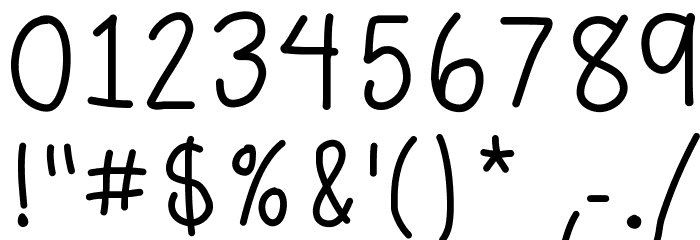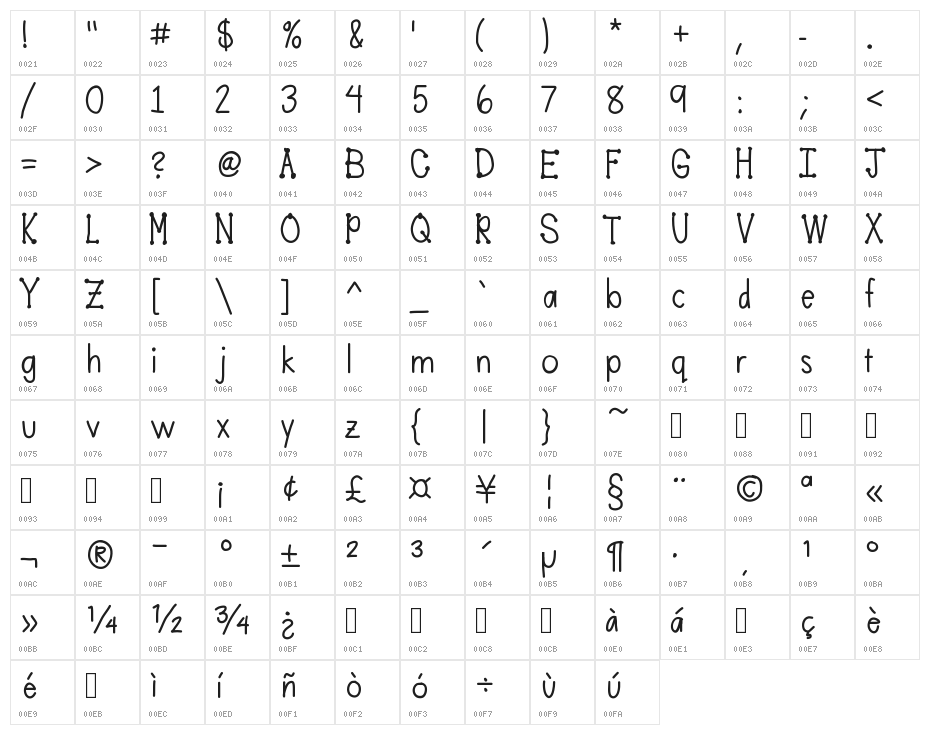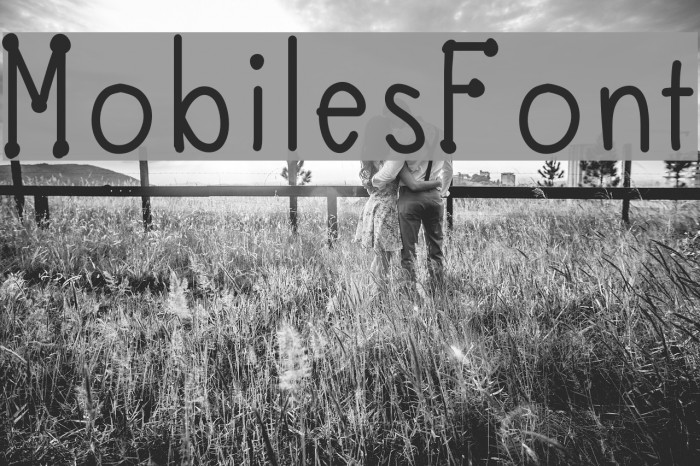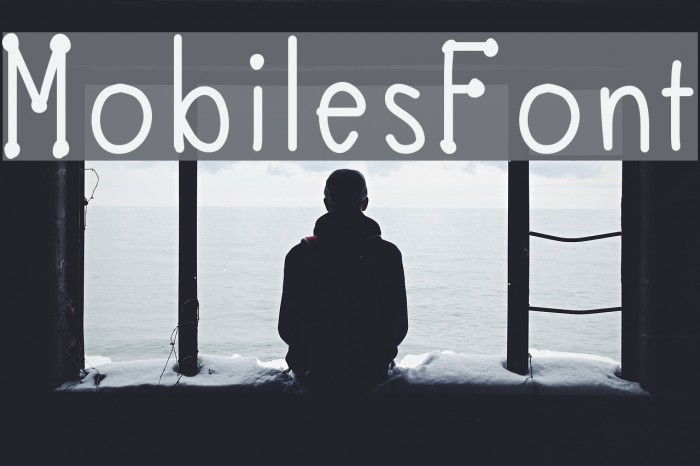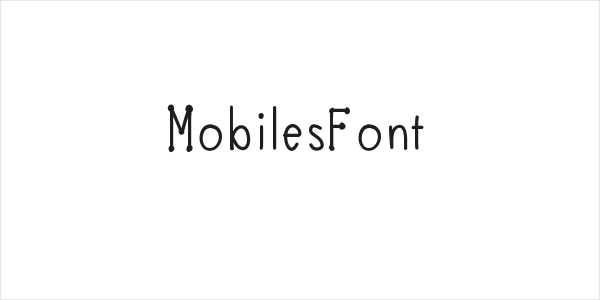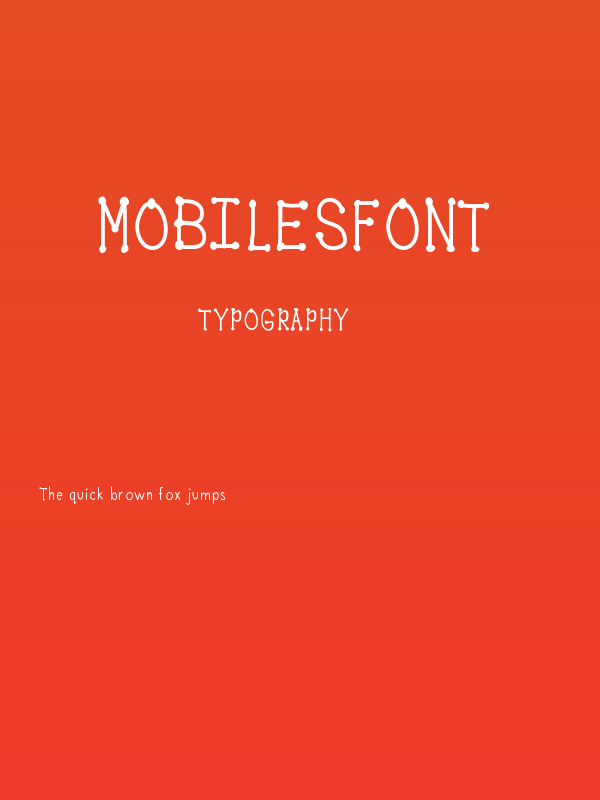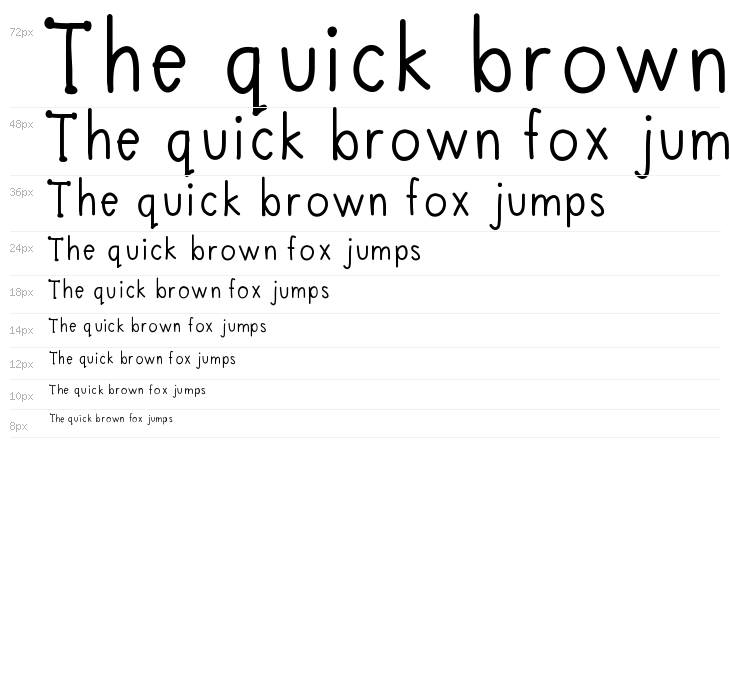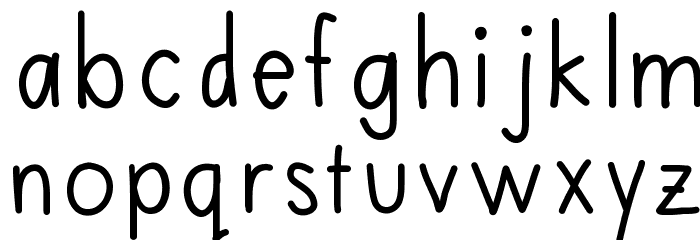
MobilesFont Font
MobilesFont Description
This playful and whimsical font features rounded, bubbly characters with a hand-drawn aesthetic. The uppercase and lowercase letters are consistent in style, with a slight irregularity that adds charm and personality. The numbers and special characters maintain this playful theme, making the font suitable for creative and informal projects. The strokes are uniform in thickness, giving it a cohesive look while the rounded terminals soften the overall appearance.